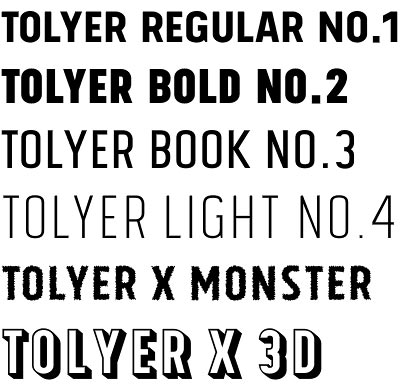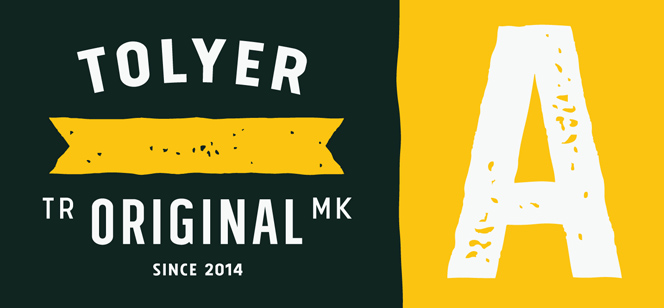
Tolyer font
Tolyer font is an extra large super family of 50 fonts! In many cases quantity doesn’t mean quality but here we have such a big abundance of contrast, styles, weights and special effects in one place that it actually doesn’t pay attention to the fact this is an all caps family. When it comes to strong headlines, titles, posters, masculine brand names Tolyer type family is probably one of the best choices in sans serif typography. You could easily pick from low to high contrast outlines, uprights and obliques, 3D effects or different artistic textured styles to make your work diverse, expressive and attractive. Tolyer font offers you maximum readability even in poor display conditions like low quality printing or low resolution monitors. In some cases poor print quality could even add more value to the final result, because Tolyer has a lot of potential to be used in difficult conditions. Letterpress and high embossing are one of those print effects that really suit Tolyer best. Use it in high contrast with background environment, higher ink flow, don’t think about the dot gain and you should definitely use a textured paper – this is what Tolyer really likes and deserves. It will thank you for this with authentic look, classic vintage style and strong but attractive presence.
Tolyer font family is designed in 2014 by Typesketchbook type foundry. Check their Abula font, Klimt font.